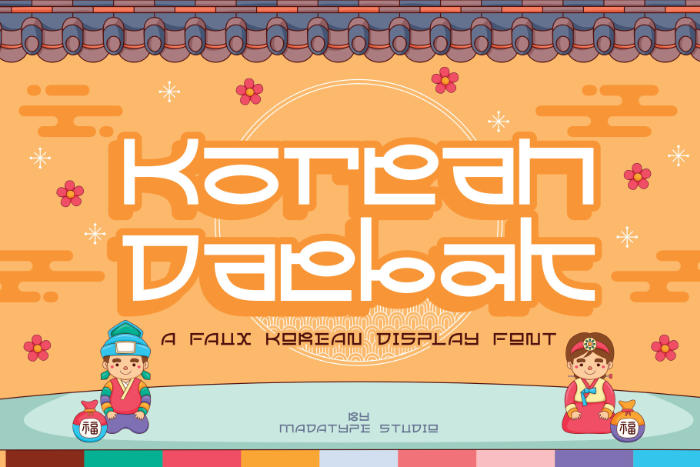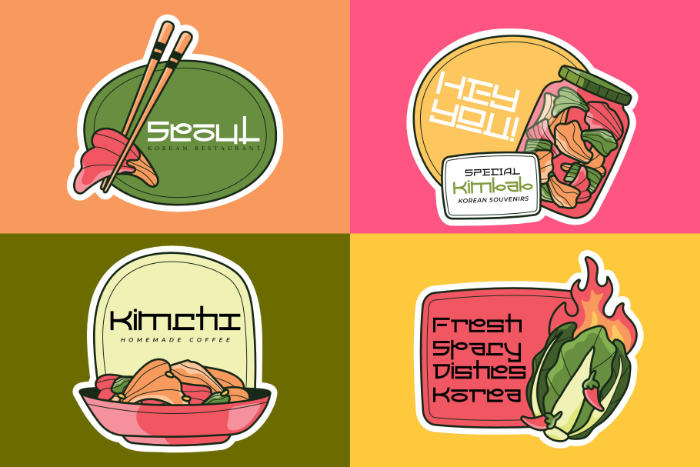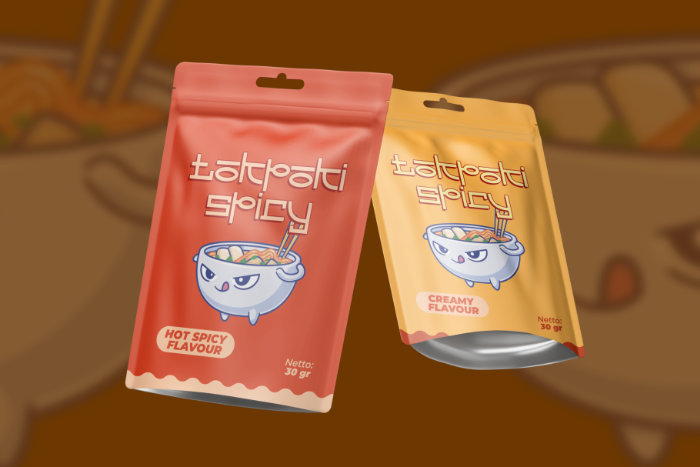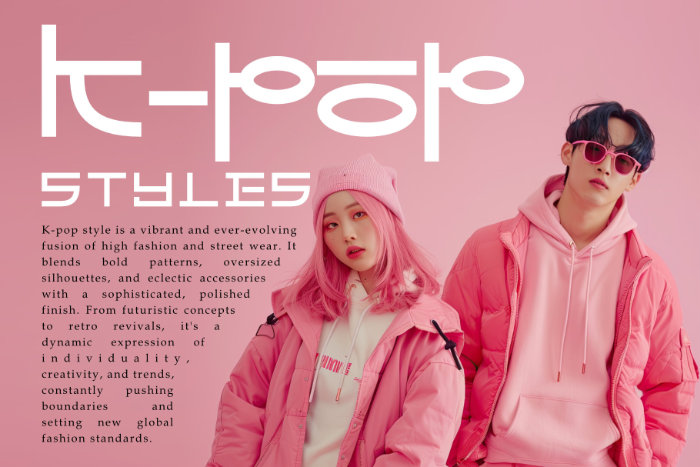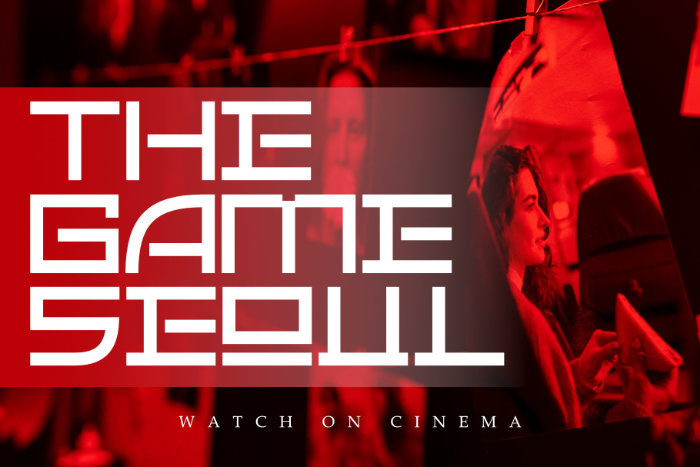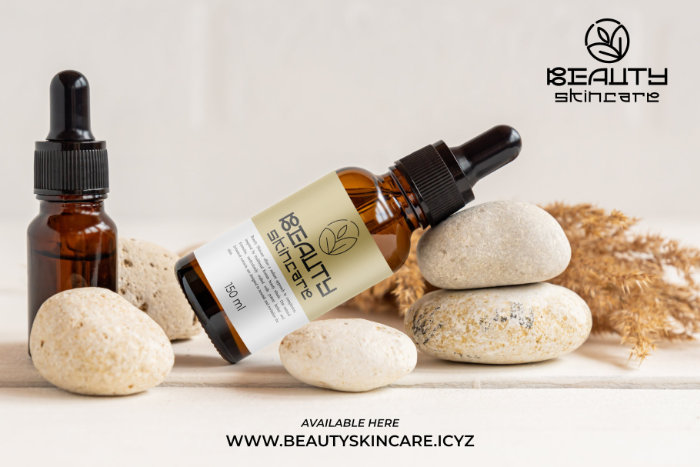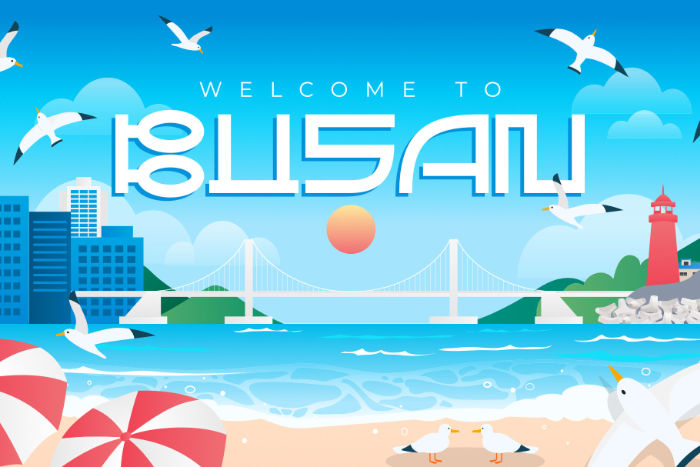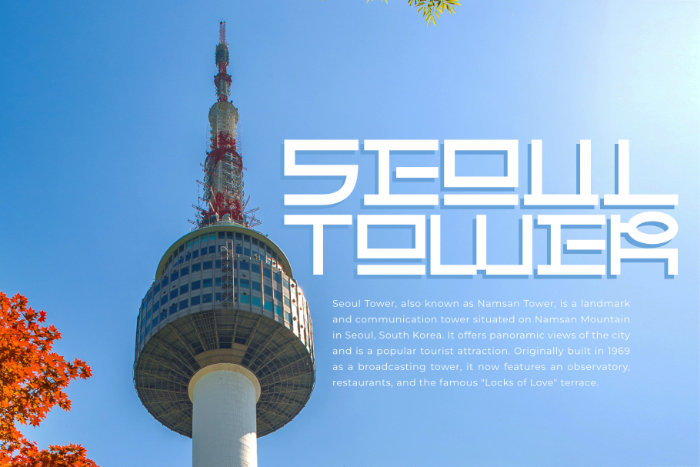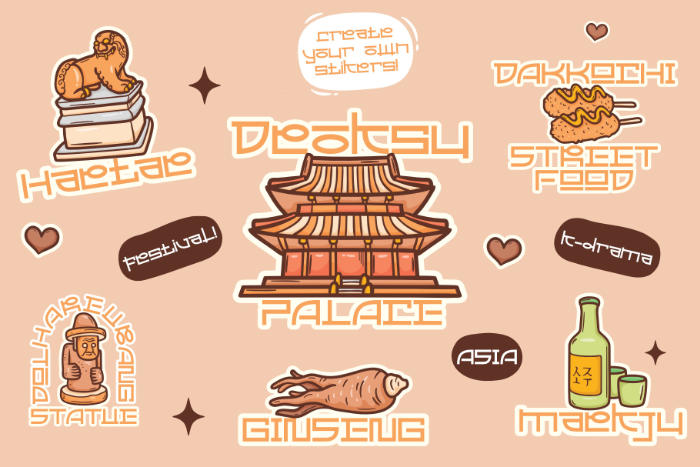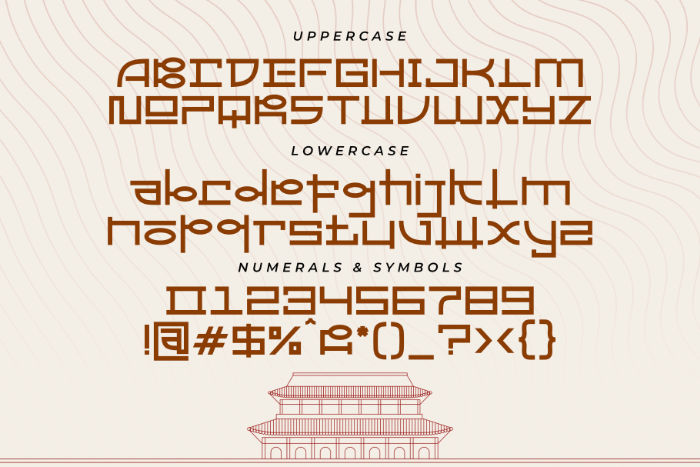
Korean Daebak is a dynamic faux Korean display font that captures the bold, distinctive spirit of Hangeul. This typeface is not just a font; it’s a statement. Each character has been meticulously crafted to evoke a strong sense of Korean style, blending traditional aesthetics with modern design sensibilities. While not a true Hangeul font, its unique, blocky structure and stylized elements pay homage to the beautiful complexity of the Korean alphabet, making it instantly recognizable and impactful.
Korean Daebak is the perfect tool for any graphic designer looking to infuse their projects with a touch of East Asian flair.
Its strong presence makes it an excellent choice for a wide range of applications, including captivating logotypes, eye-catching poster designs, bold branding, and unique packaging. Whether you’re creating a logo for a Korean BBQ restaurant, designing a T-shirt with a stylish message, or adding a distinctive title to your artwork, Korean Daebak ensures your message is delivered with power and authenticity. Give your designs the “daebak” touch they deserve.